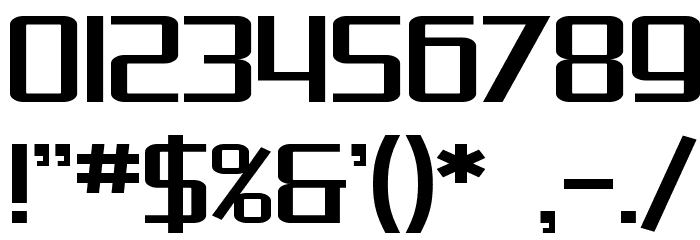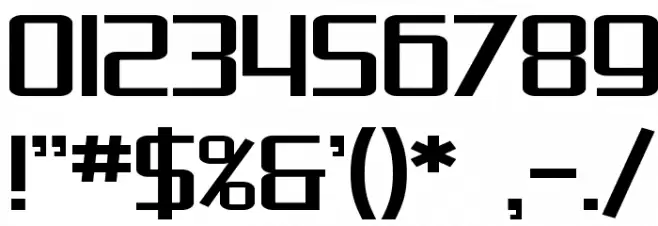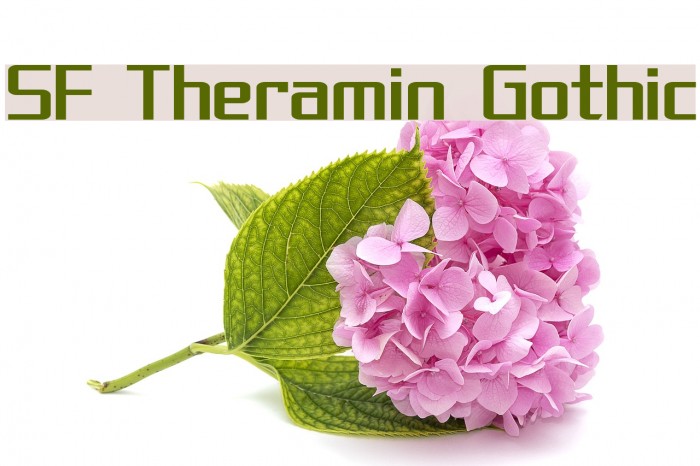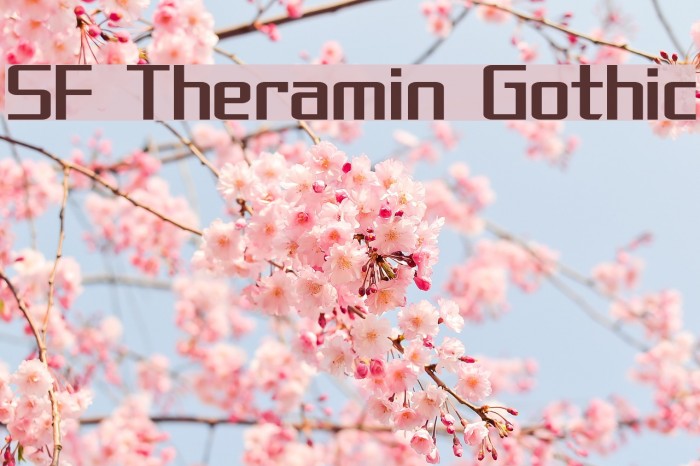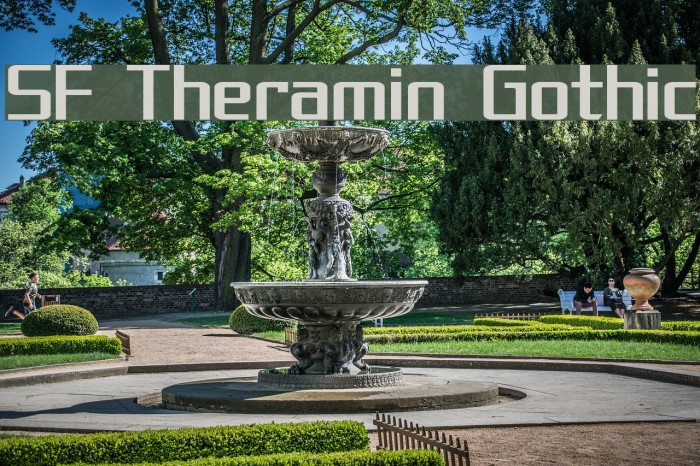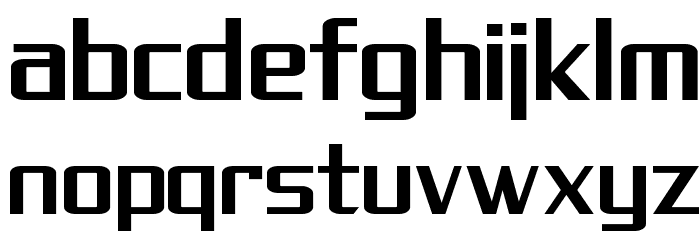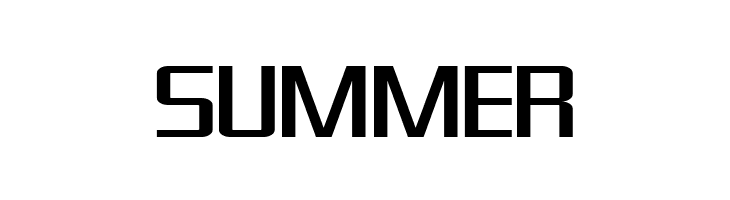
SF Theramin Gothic Font
This font features a bold, geometric design with a modern aesthetic. The uppercase letters are strong and angular, while the lowercase letters maintain a consistent structure that complements the uppercase. The numbers are clear and legible, with a uniform width that matches the letters. Special characters are distinct and well-integrated into the overall style. The font's design is clean and versatile, making it suitable for a variety of applications. Its boldness and clarity make it ideal for headlines and display purposes, while its geometric precision adds a contemporary touch.
A bold, geometric font with a modern, angular design.
• Proposed Projects: Ideal for branding, advertising, posters, and digital media where a strong, modern presence is desired.
• Category: Sans-Serif
• Bold: Yes
• Italic: No
• Weight: Bold
• Width: Normal
• Character Spacing: Normal
• Contrast: Low
• Overall Style: Modern
• Use Case: Headlines, Logos, Display